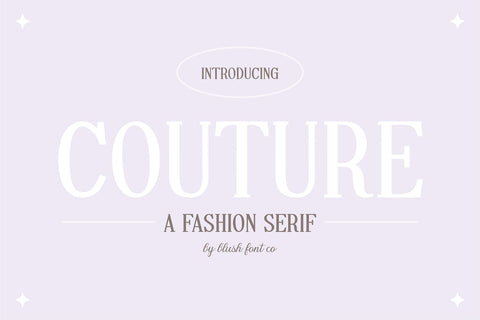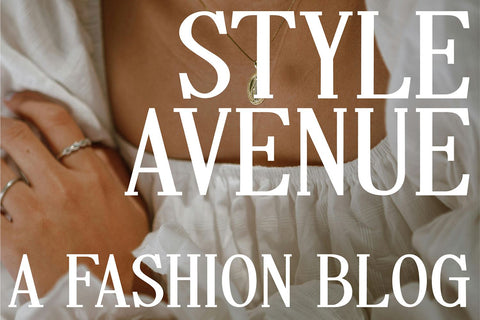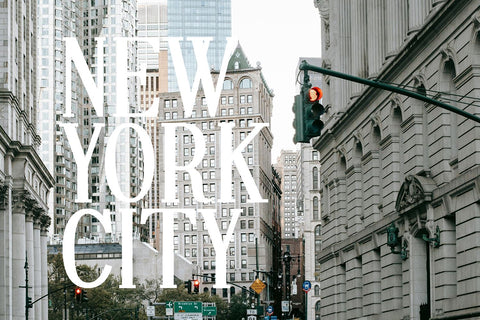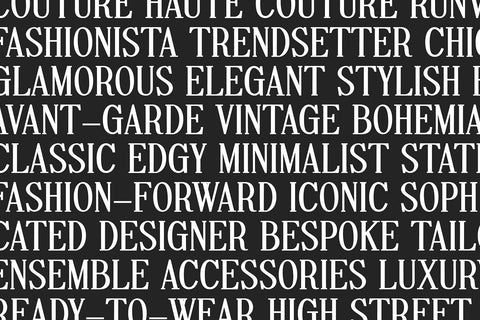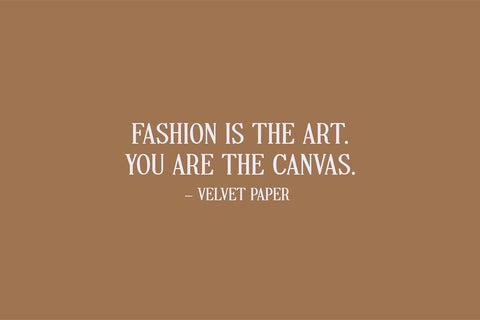
Couture Classic Serif Font
"Couture" a modern stylish serif fashion font.
Multilingual support.
This font is a tall serif display font that is perfect for wedding or crafty projects. Use it for branding, crafts for decor, invitations, and more! All caps glyphs, numbers, punctuation marks, and intl characters.